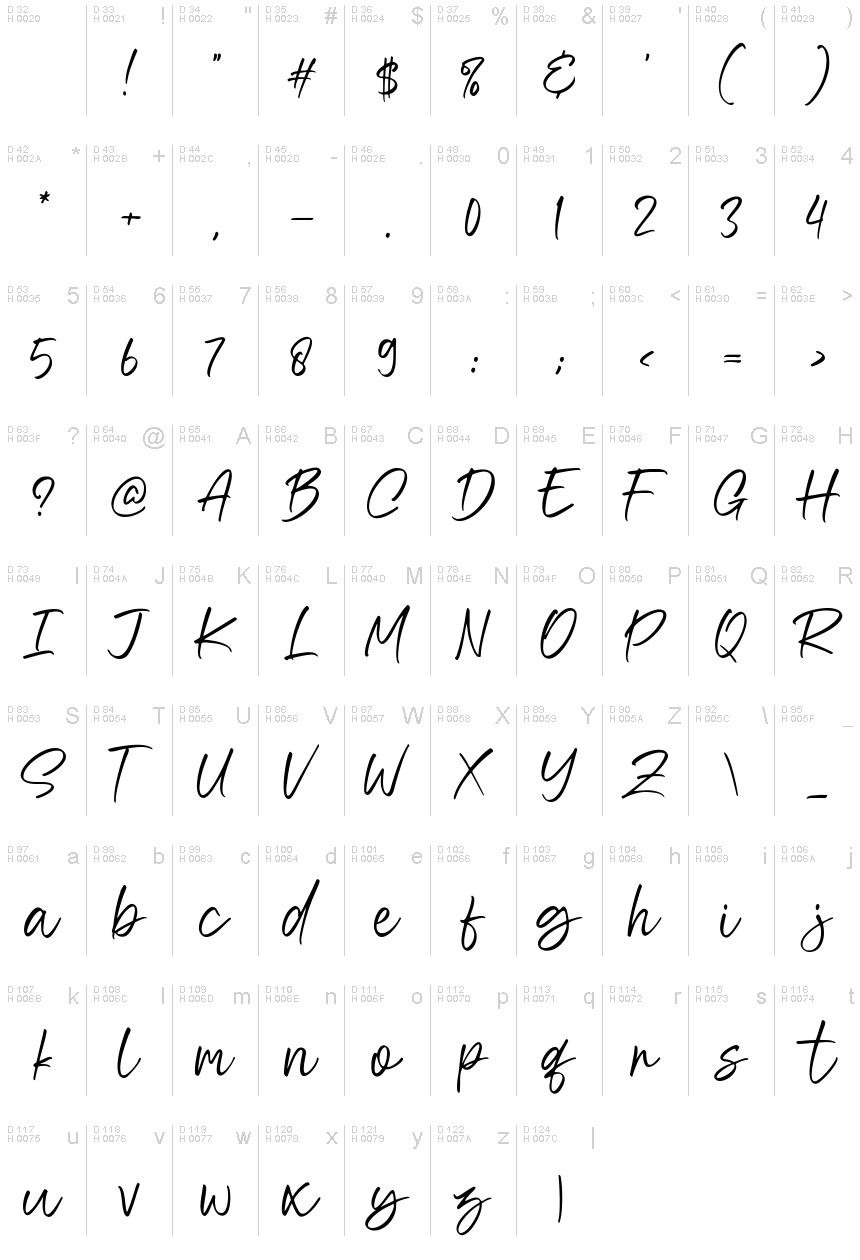
Othere
Othere is a captivating handwritten font crafted by designer Khurasan. This expressive typeface exudes a sense of effortless elegance, with its fluid strokes and natural flow. The font's organic, calligraphic aesthetic lends an air of charm and sophistication, making it an ideal choice for a wide range of design applications.
Othere's versatility shines through its ability to convey a range of moods, from the playful and casual to the refined and sophisticated. Its distinctive character and unique personality make it a compelling option for branding, packaging, editorial design, and personal projects where a touch of handcrafted flair is desired.